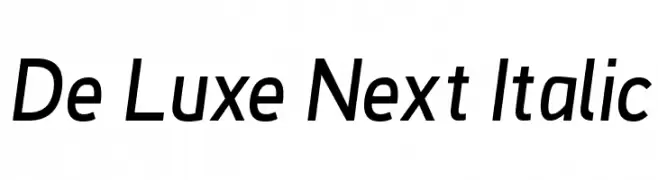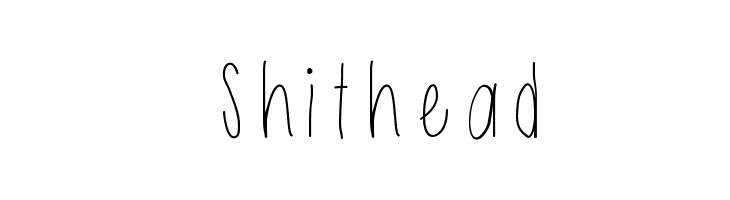
A modern, italic sans-serif font with clean lines and a professional appearance.
A playful, bold font with irregular, blob-like shapes and a fluid, organic style.
A classic serif font with calligraphic influences and elegant strokes.
A bold, distressed font with jagged edges and a rugged, energetic style.
A playful, handwritten font with irregular strokes and a casual style.
A playful, handwritten font with irregular, spontaneous strokes.
A bold, geometric font with a futuristic and decorative style.